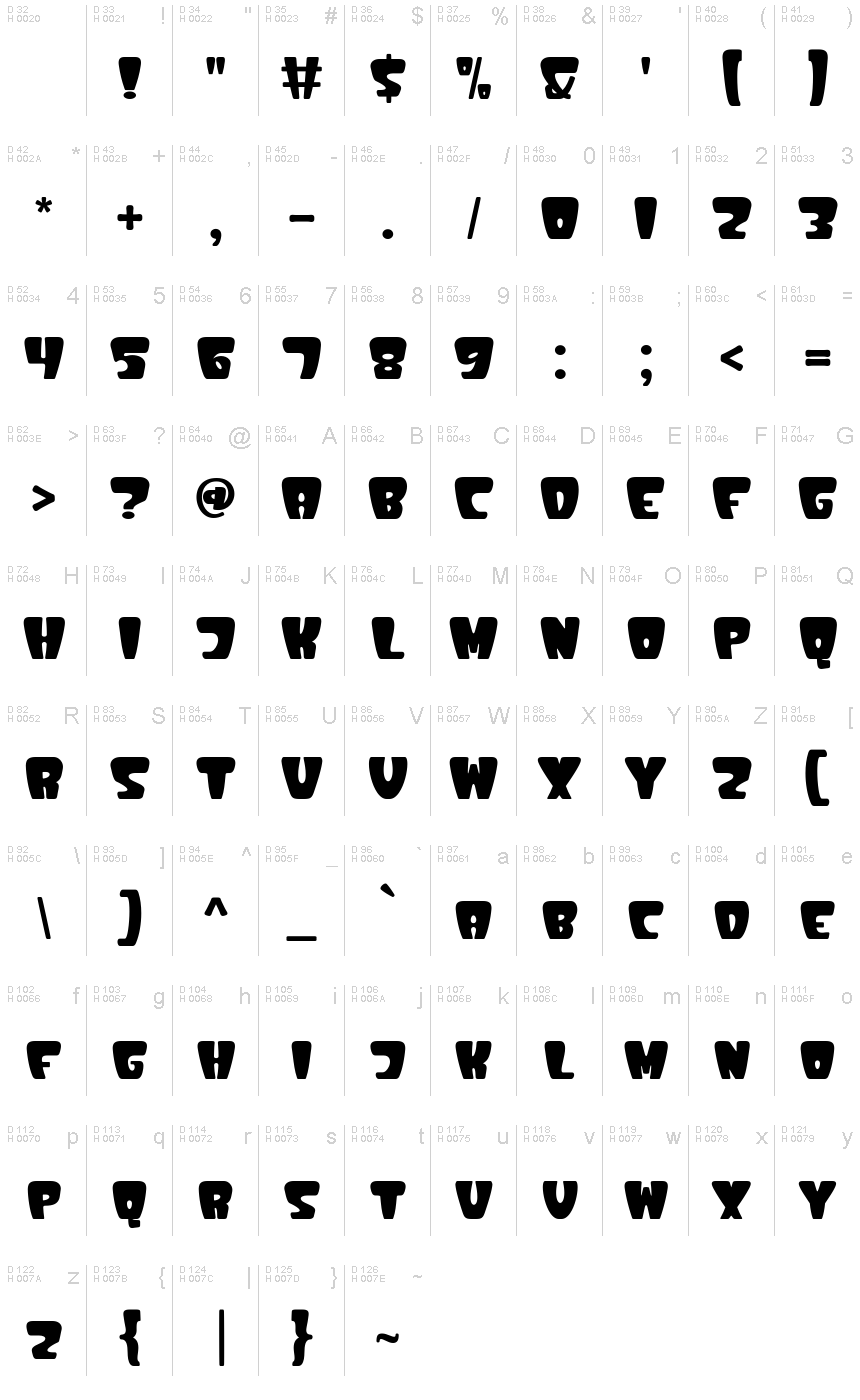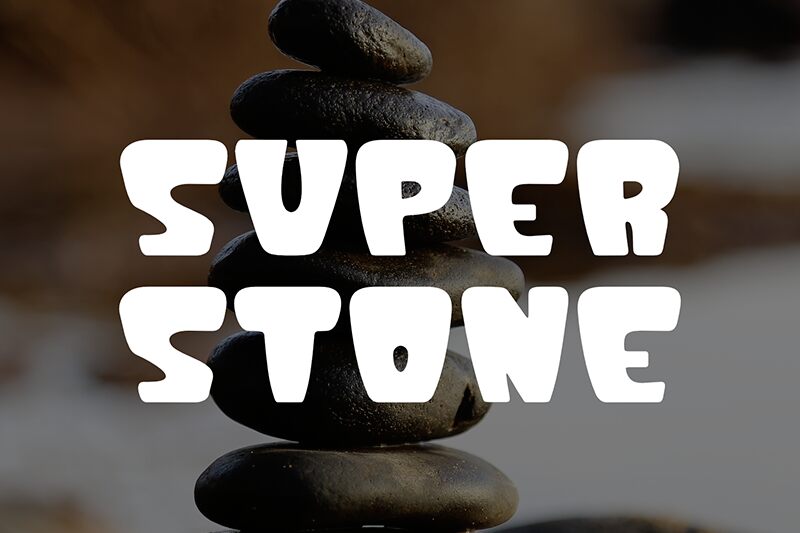
Super Stone
Super Stone font by fsuarez913 captures the essence of playful creativity with its bold, cartoon-inspired style. This display font features an expanded width that amplifies its visual impact, making it an ideal choice for captivating headlines or eye-catching graphics. Perfectly suited for projects seeking a touch of whimsy, Super Stone commands attention in logos, posters, and branding materials.